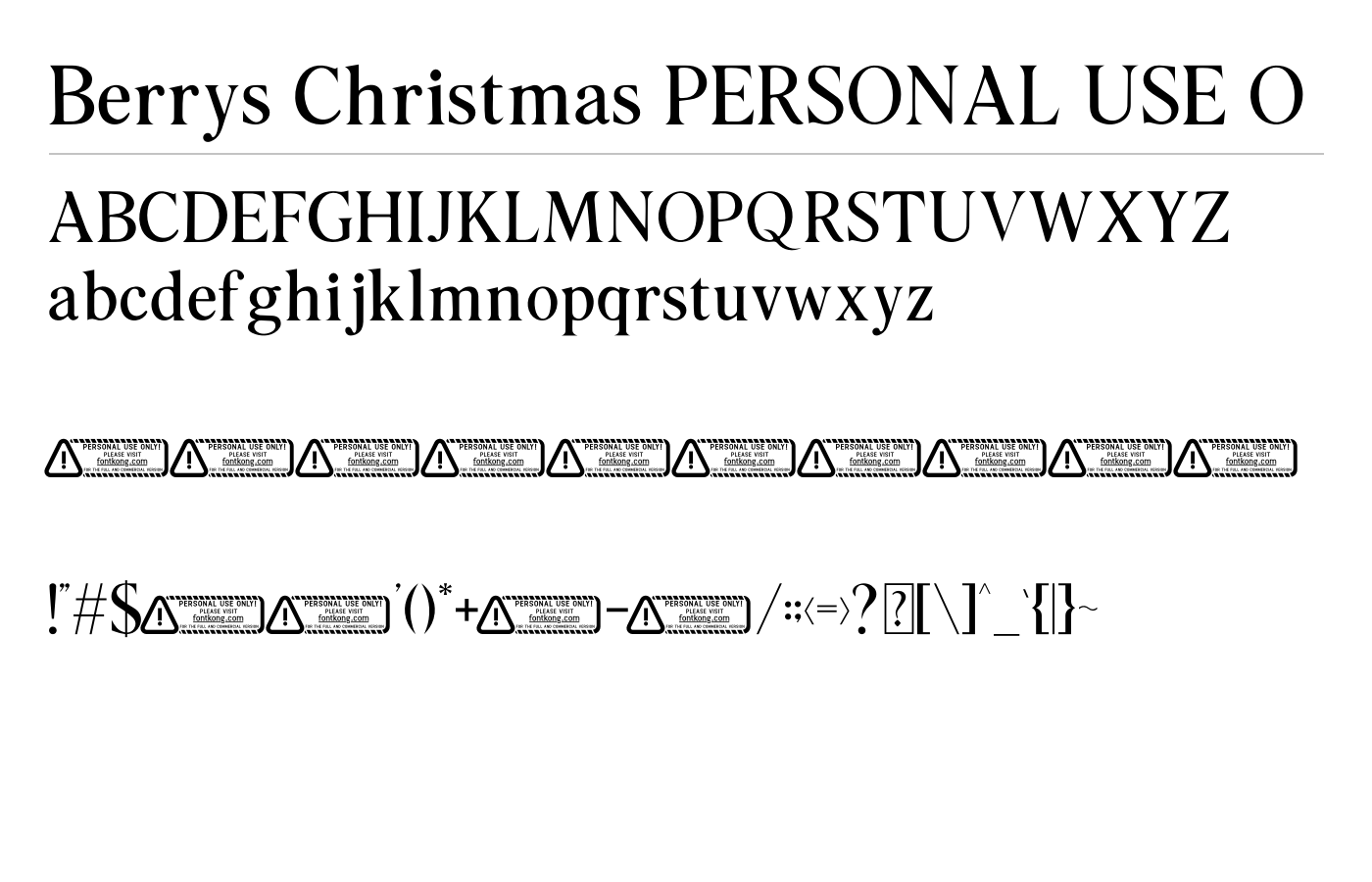
Berrys Christmas PERSONAL USE O is a classic serif font with a refined, traditional appearance characterized by moderate stroke contrast and elegant, thin serifs. Its clear letterforms with upright stress and slightly condensed width make it well-suited for formal and timeless designs, lending a sophisticated and vintage feel. This font works beautifully in editorial layouts, invitations, and branding where a touch of elegance and readability is essential.
Berrys Christmas PERSONAL USE O Font
About Berrys Christmas PERSONAL USE O Font
| Font family | Berrys Christmas PERSONAL USE O Font |